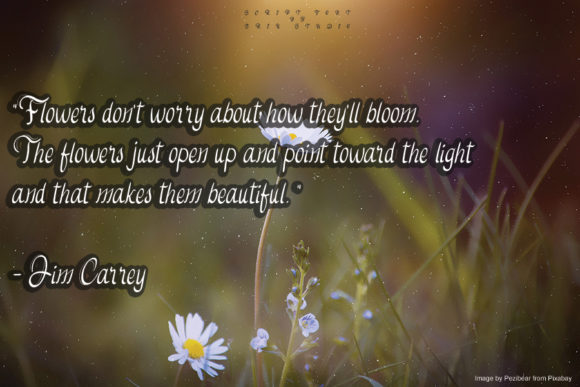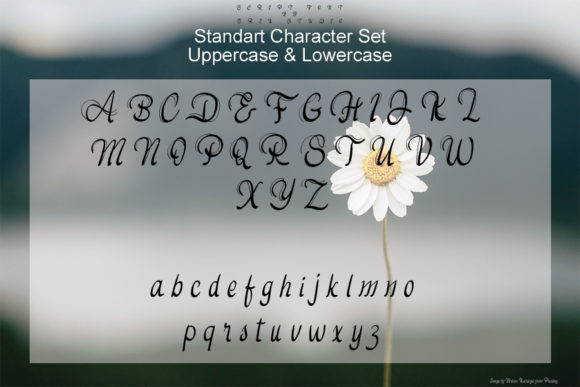
Daisy Flowers Font
db-ku.com - Script & Handwritten -- Daisy Flowers is a romantic and sweet calligraphy typeface with characters that dance along the baseline. Dainty and joyful, this font will be ideal for writing wedding invitations, cards or any other design that may need a romantic, personalized touch!